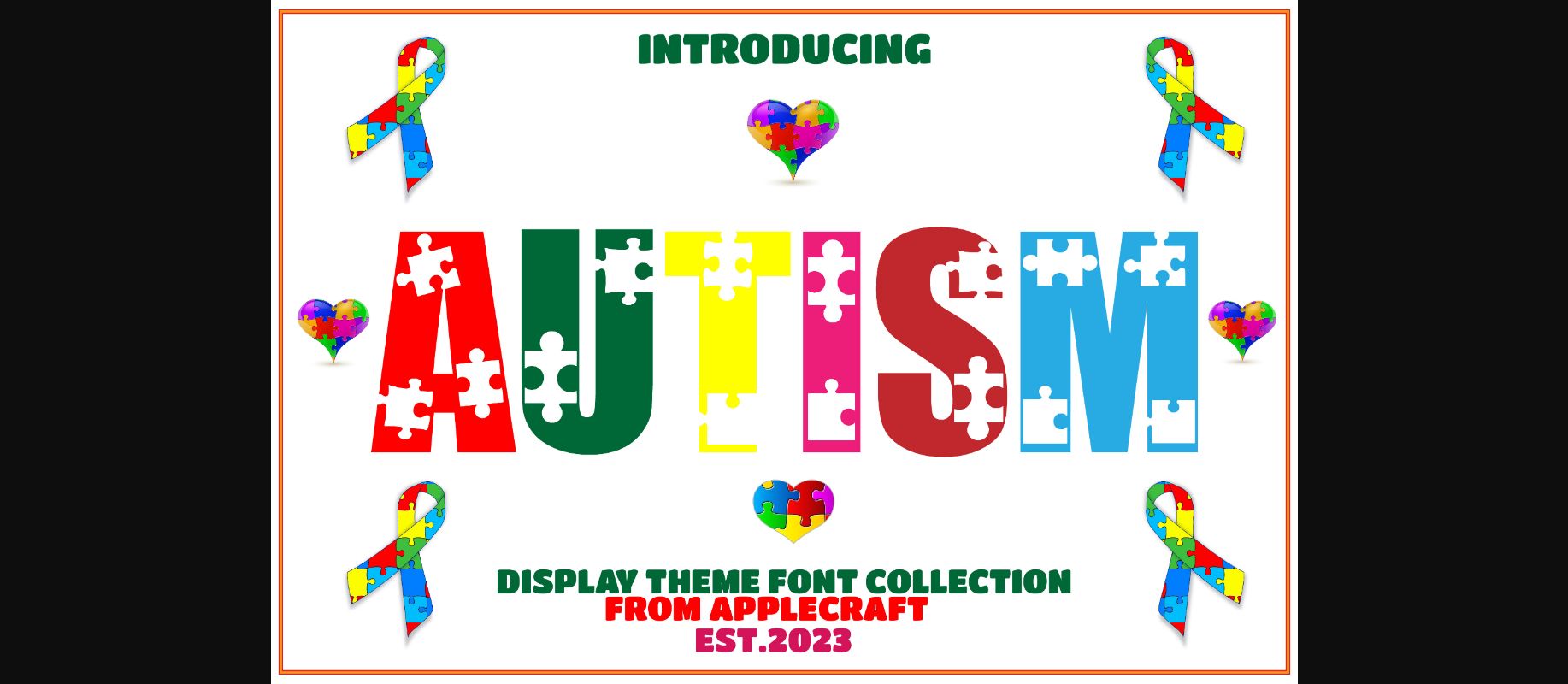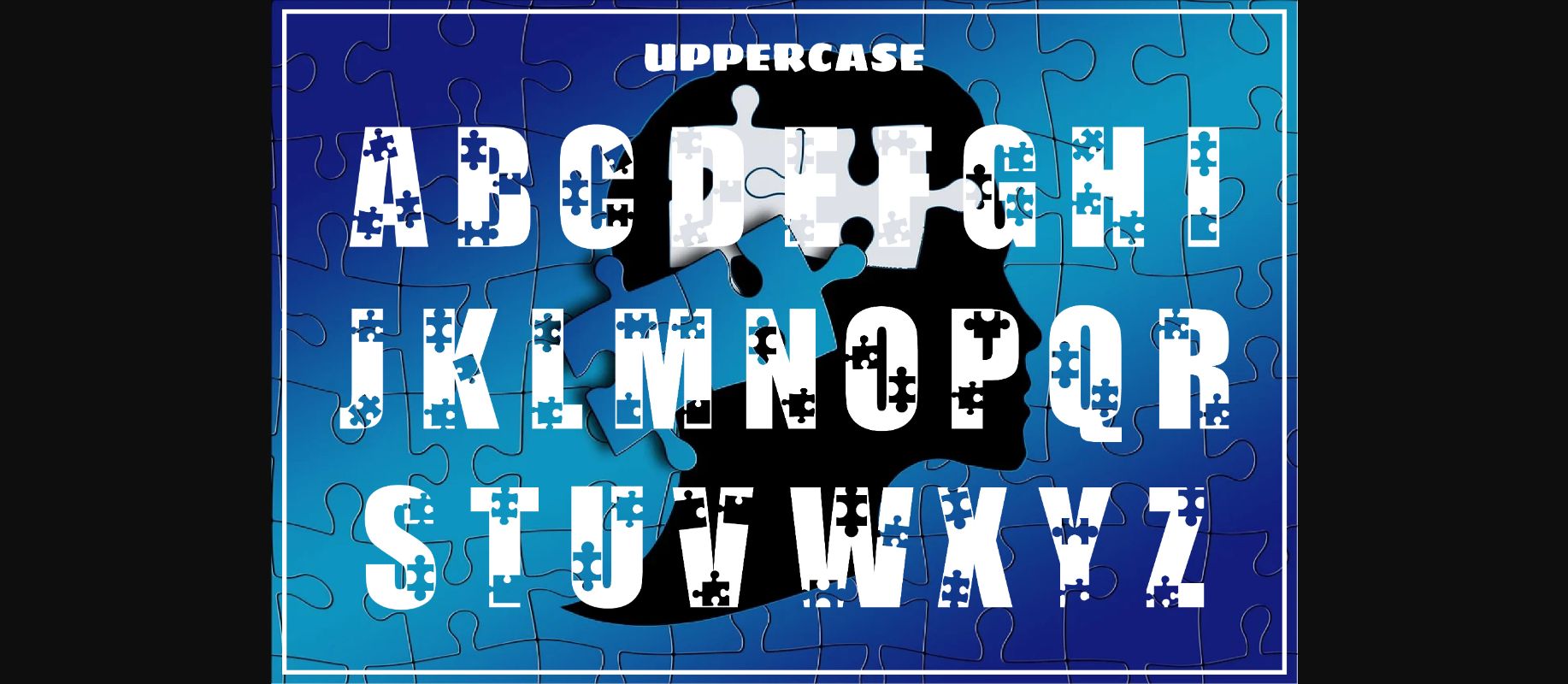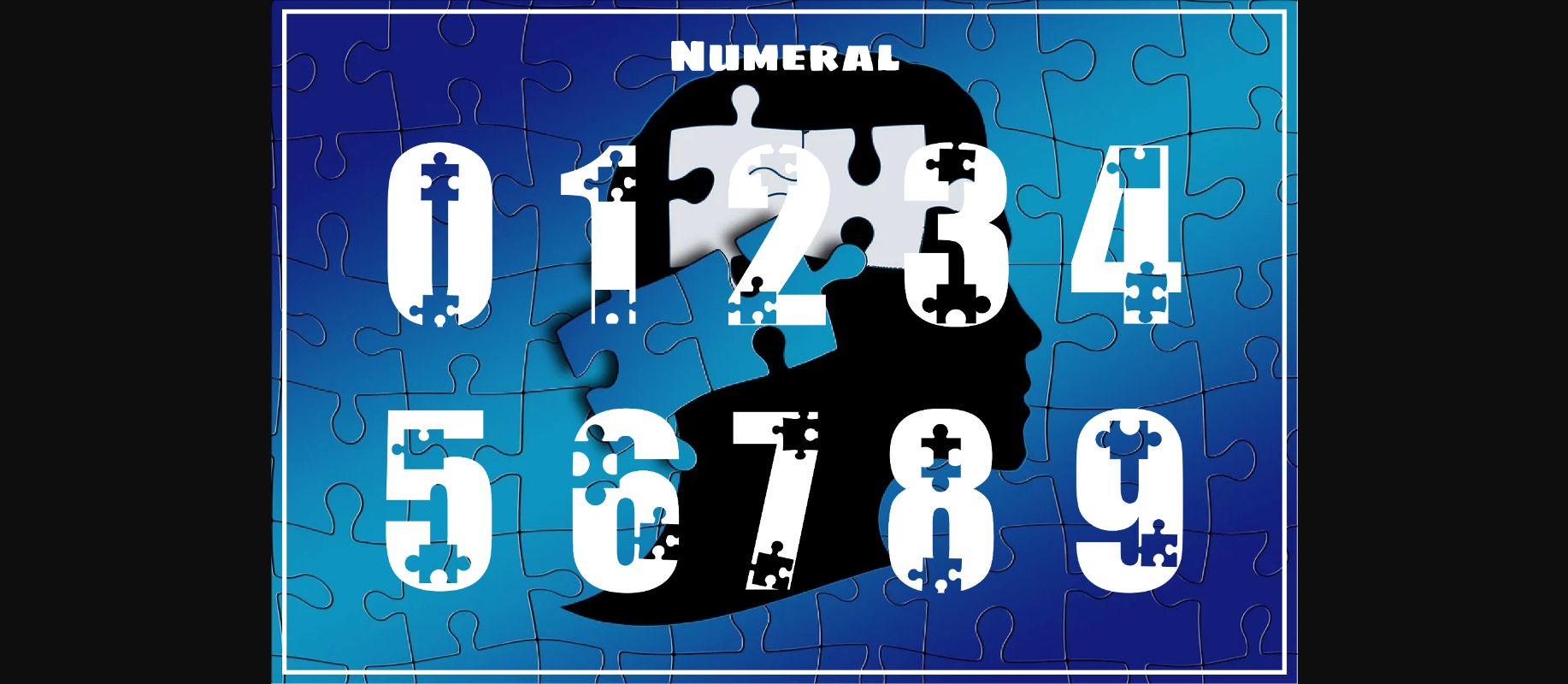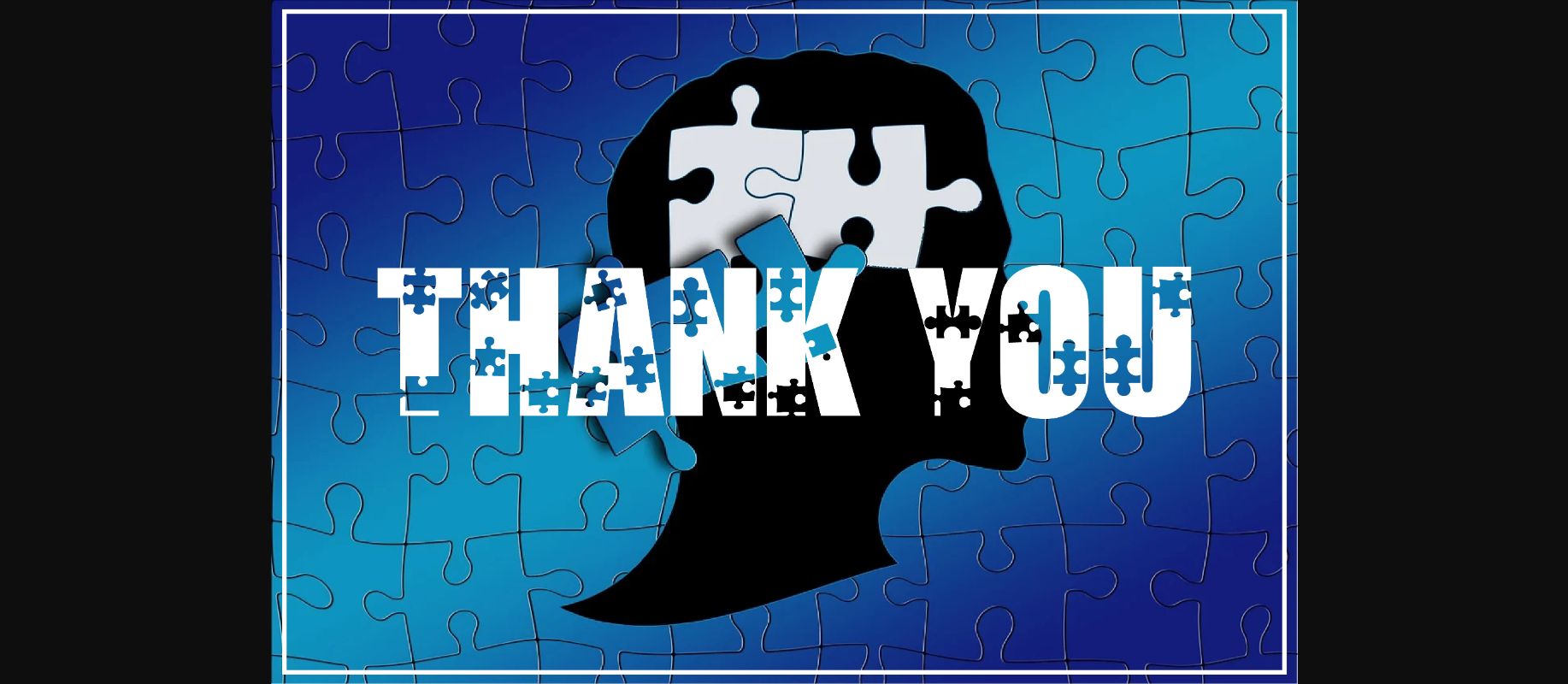
HomeDecorative FontsAutism Font Decorative Fonts Autism Font FacebookXPinterestWhatsApp 1 of 6 ... Autism Font Poster 2... Autism Font Poster 3... Autism Font Poster 4... Autism Font Poster 5... Autism Font Poster 6... About Autism Font Autism is a trendy and unique decorative font specially crafted to make your projects more interesting! Add it to your fonts library, and it will become an instant favorite! DOWNLOAD NOW People also explored Kalina Font Mark Rasford Font Amstermilk Font Plain Bakery Font Roadkill Heavy Pro Cupcake Font Wassalam Font Whoops Font Belitha Font 308 0 TagsAutismAutism Font Previous articleBaby to School FontNext articleTexur Font LEAVE A REPLY Cancel reply Comment: Please enter your comment! Name:* Please enter your name here Email:* You have entered an incorrect email address! Please enter your email address here Website: Save my name, email, and website in this browser for the next time I comment. Personal Use Free Multicolore Personal Use Free Read more about this font Sehat Selalu Personal Use Free Read more about this font Victorian Ornaments Personal Use Free Read more about this font Stone Garden Personal Use Free Read more about this font BLOG 5 Fonts That Will Dominate Design Trends in 2026 5 Fonts for 2026 That Will Dominate Design Trends Typography plays a critical role in visual communication, and as we look ahead to 2026, it’s... Elegant Wedding Invitation Fonts – Handwritten & Script Fonts Top 7 Google Fonts Alternatives for Faster and Privacy-Friendly Web Design (2025) Using Fonts in Digital Marketing: Tips to Strengthen Your Brand Identity